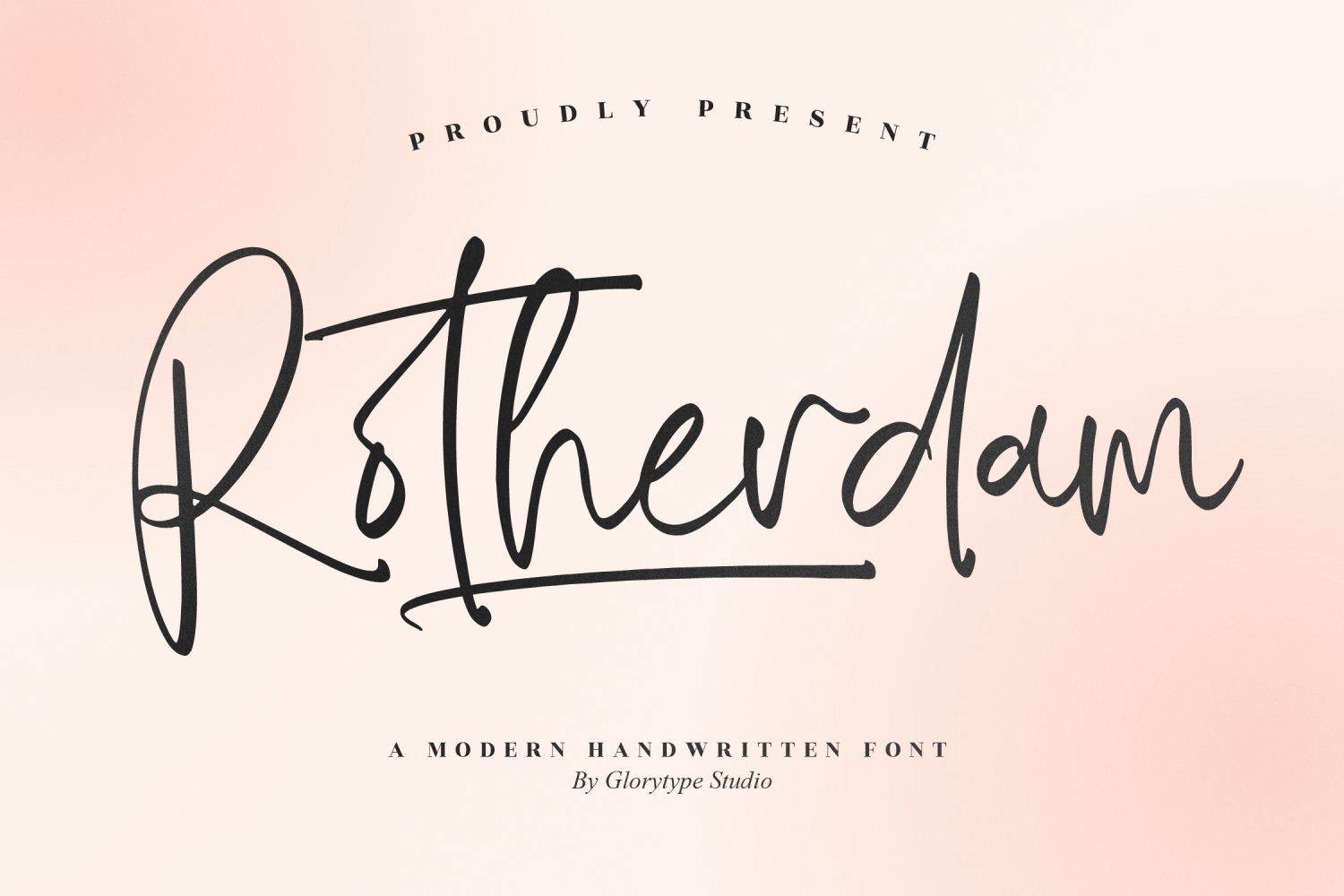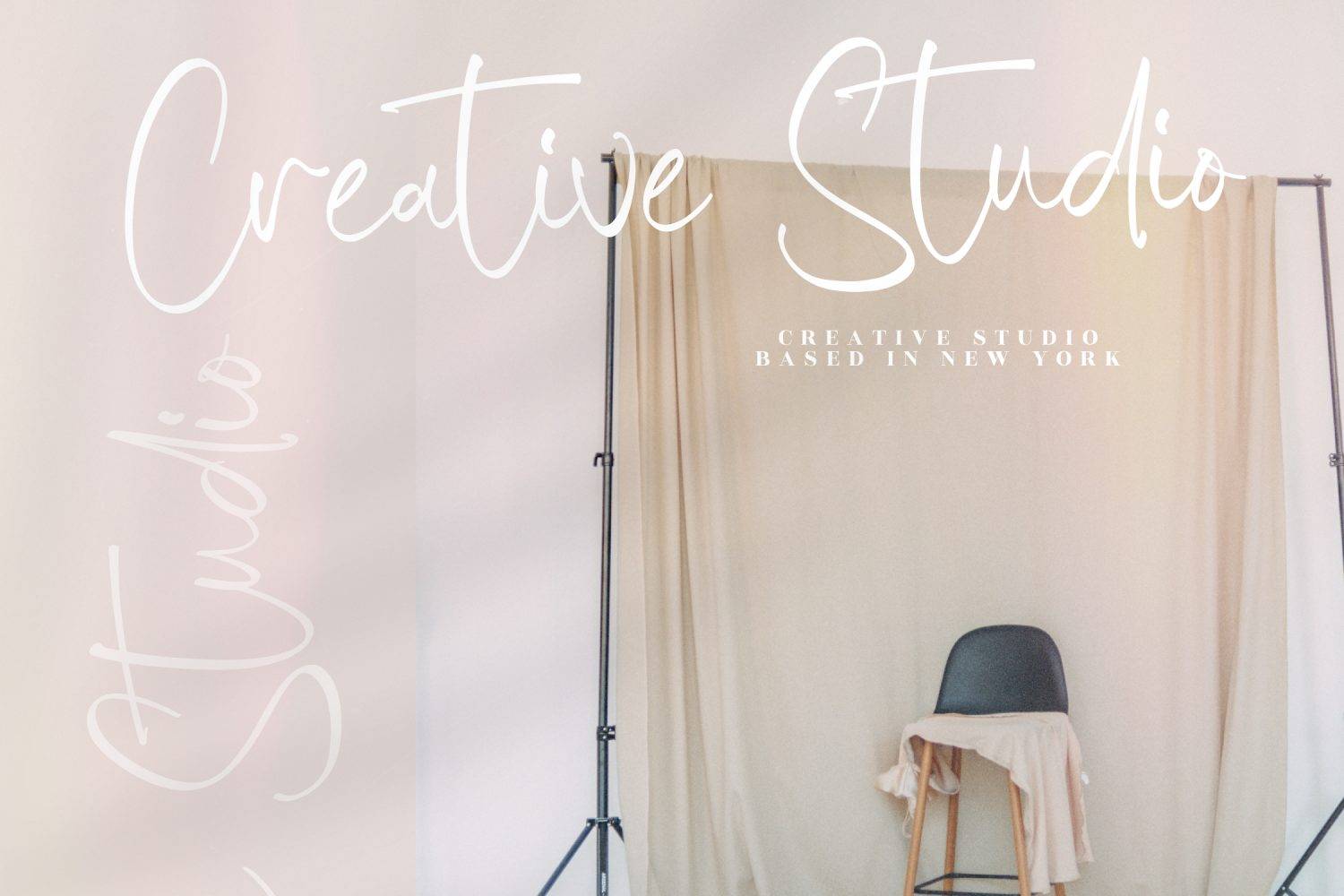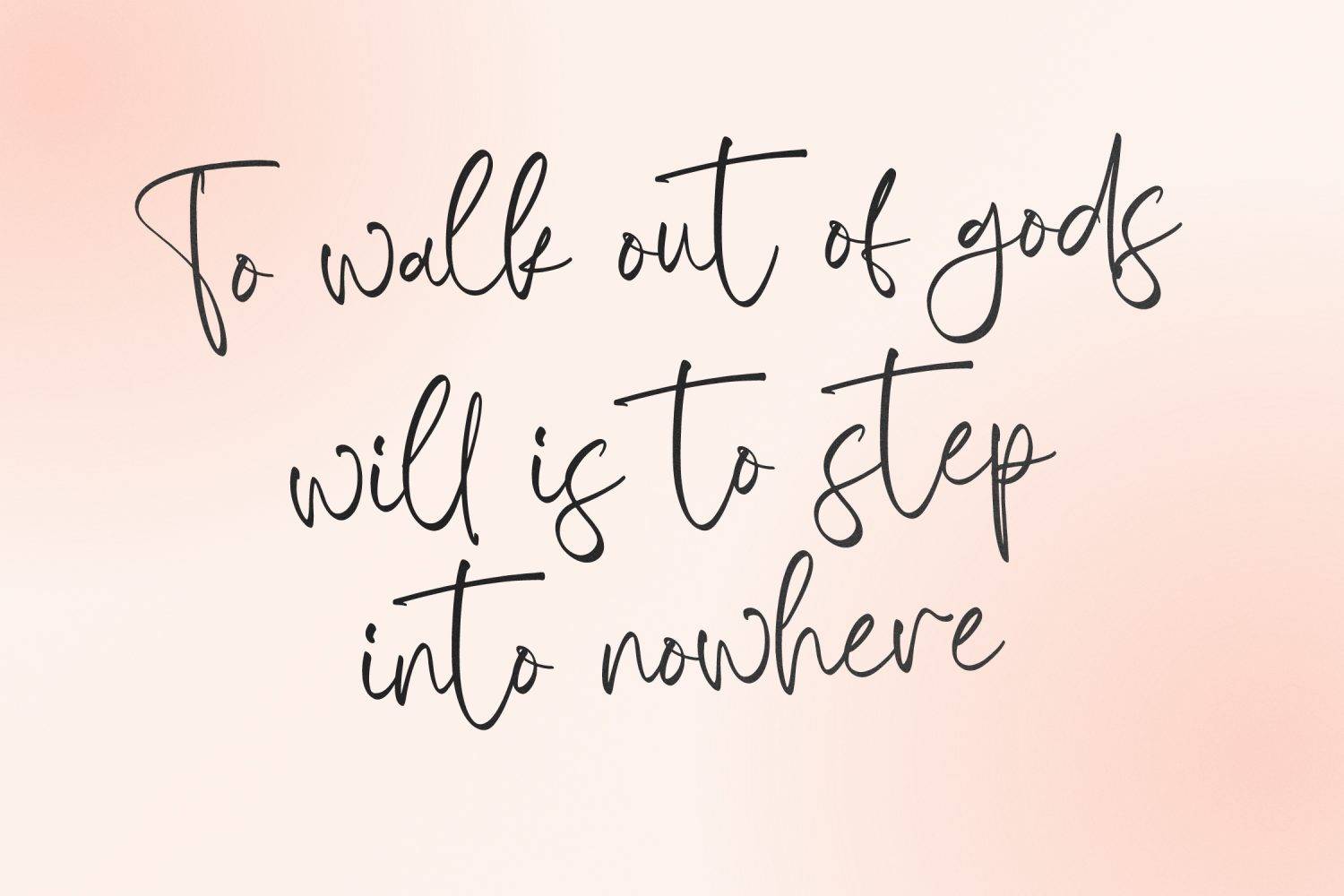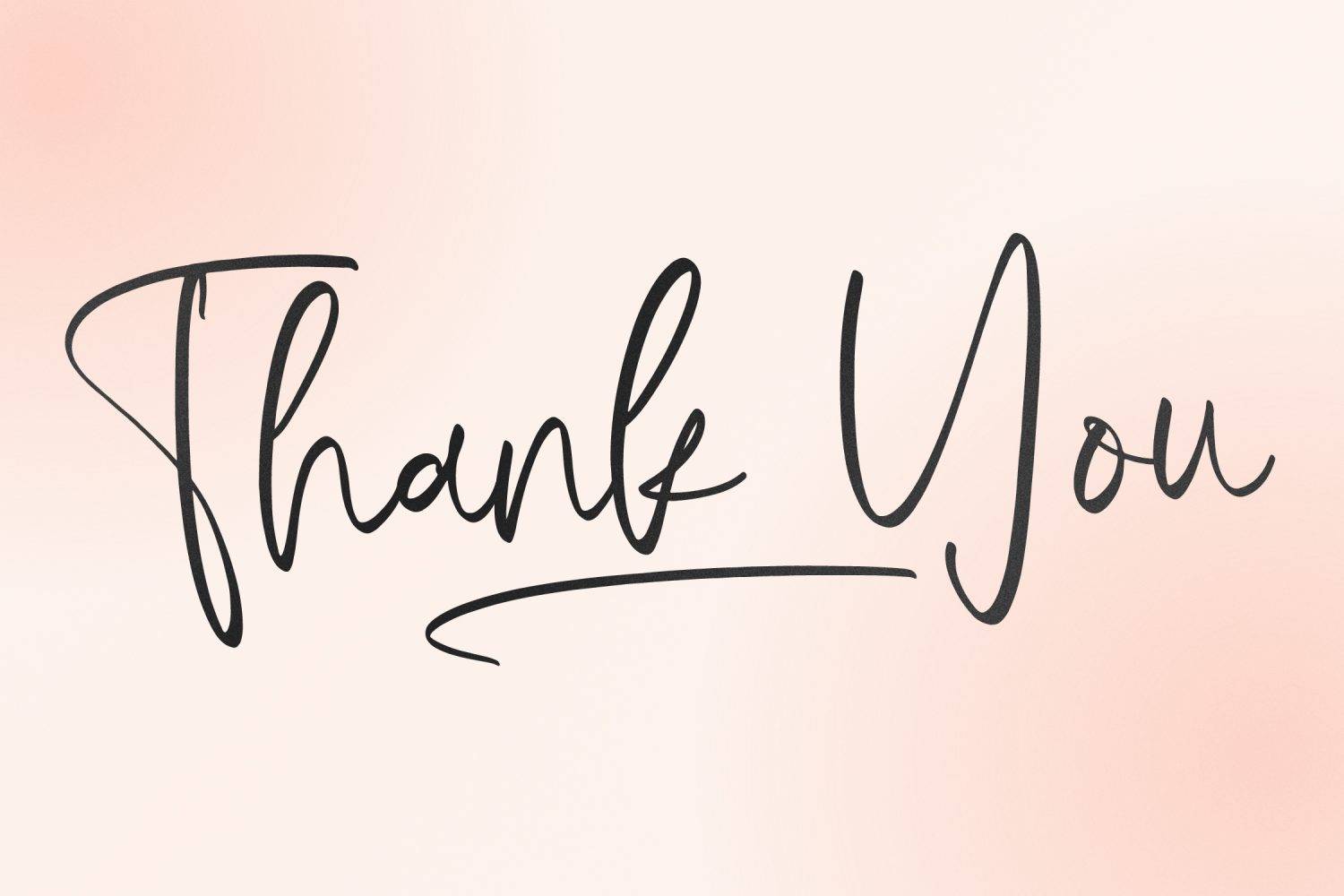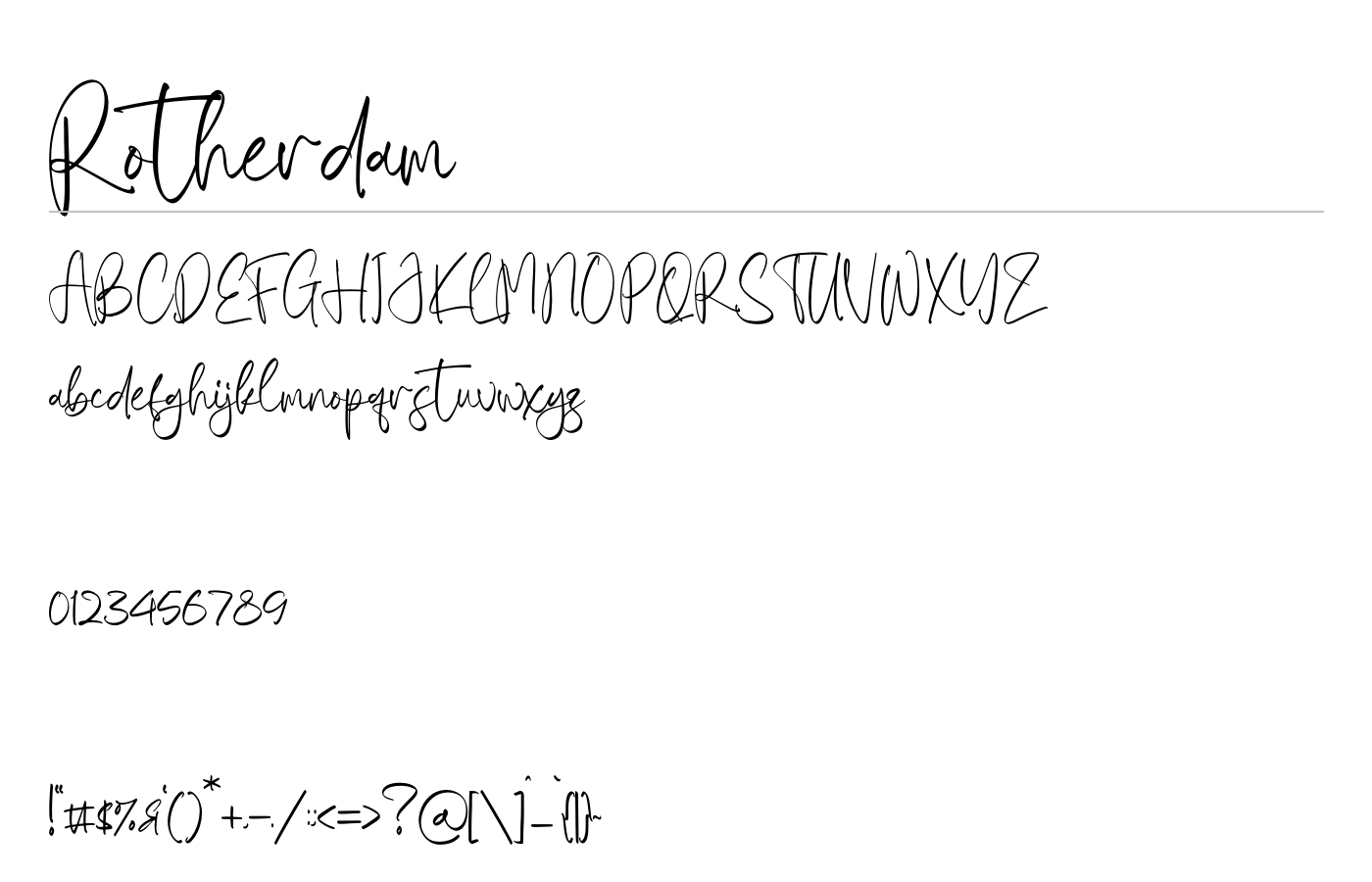
Rotherdam is a delicate, handwritten script font with a thin, airy weight and a casual, flowing style that feels personal and approachable. Its tall, slender letterforms and varied stroke widths give it a playful yet elegant character, making it ideal for invitations, branding, and creative projects that seek a warm, authentic touch. This font works best in display uses where its unique charm can shine without sacrificing readability.
Rotherdam Font
About Rotherdam Font